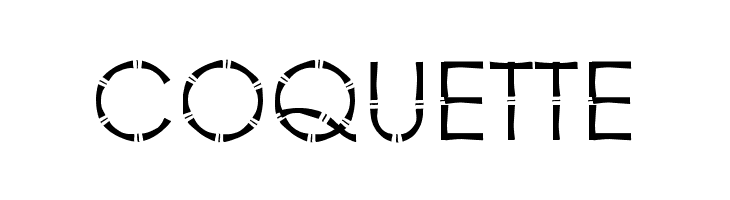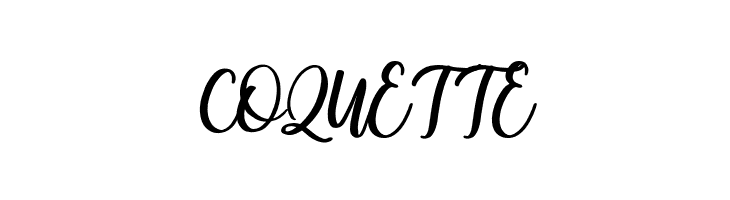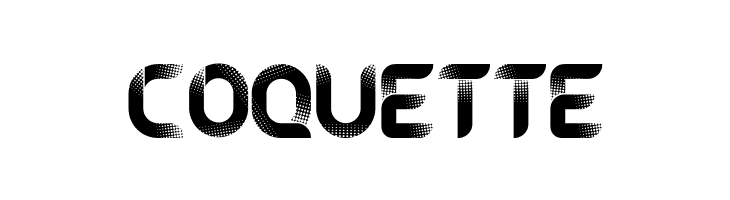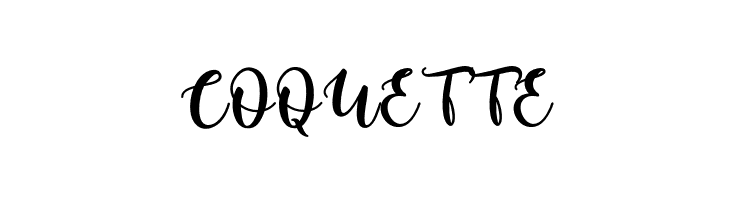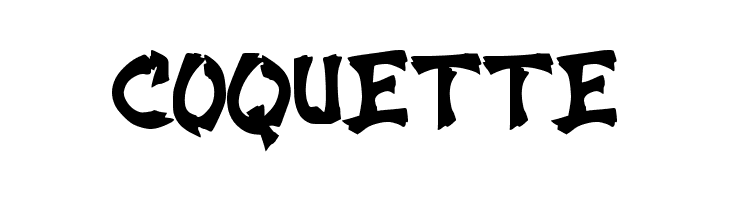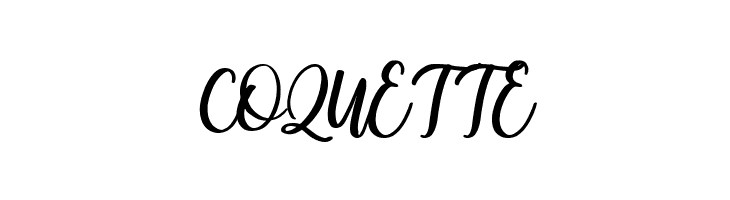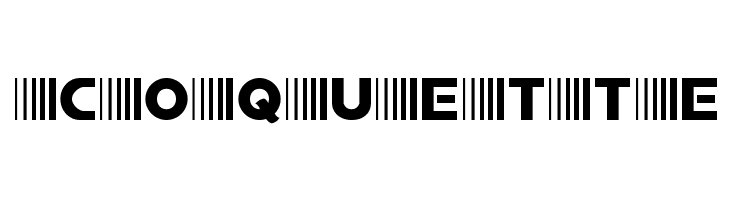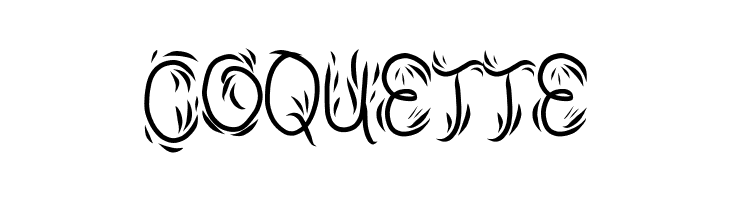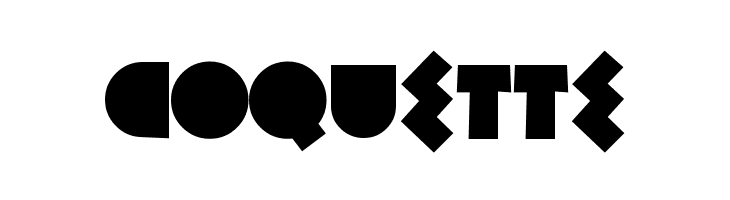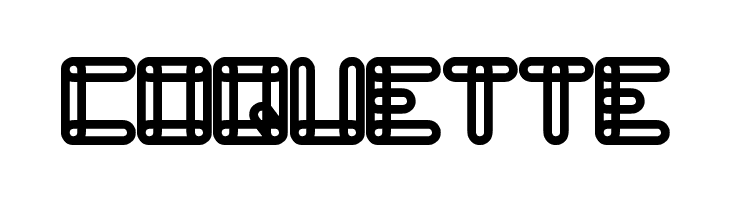
A modern, segmented font with a bamboo-inspired design.
A bold, brush-like font with an organic, hand-drawn style.
A modern, bold font with a halftone pattern and geometric design.
A modern, tubular font with a playful, bamboo-like design.
A bold, geometric font with sharp angles and a modern style.
A decorative font with intricate, nature-inspired bamboo-like patterns.
A lively and elegant script font with a handwritten appearance.
A modern, cursive font with a flowing, handwritten style.
A cursive, handwritten font with elegant curves and a calligraphic style.
A bold, geometric font with a modern and striking design.